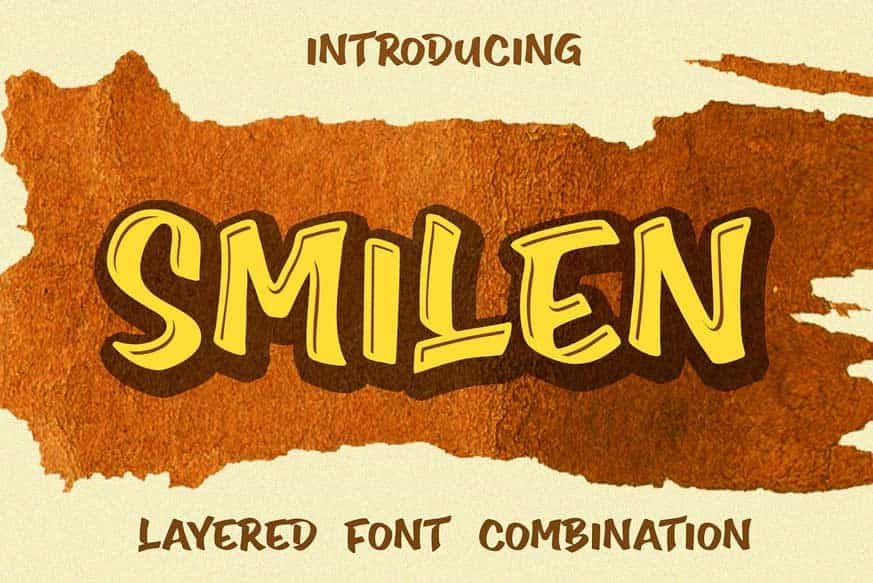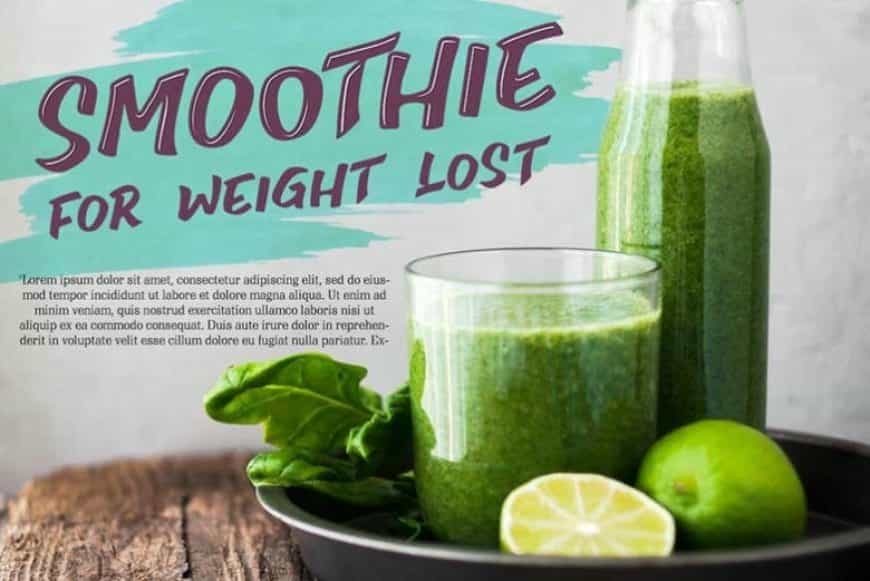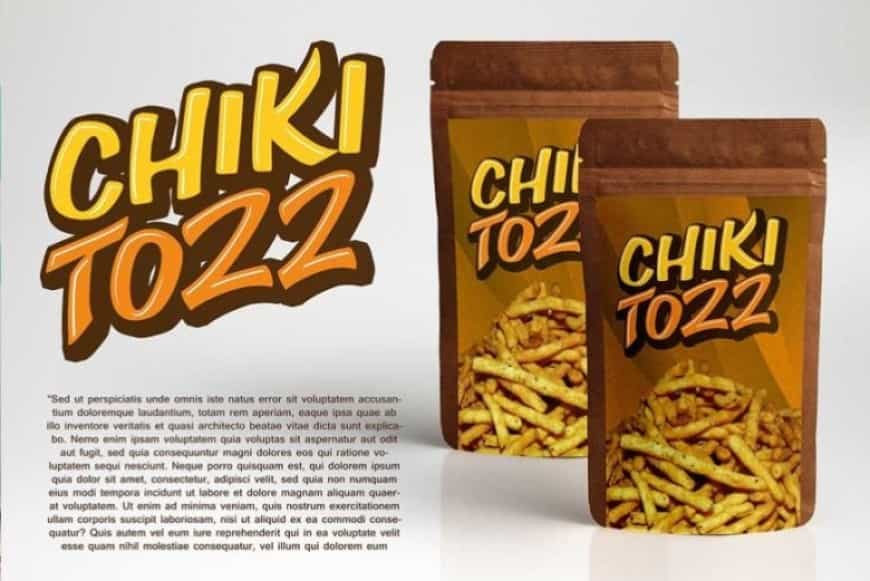
Discover Smilen Font, part of the Brush Display collection—a versatile and unique font perfect for adding a personal touch to your projects. Download it for free and enjoy crafting designs with style, from invitations to social media posts. This font is available exclusively for personal use, giving you the freedom to create without limits. Unlock your creativity with Smilen Font today!
Smilen is a lovely and attractive font that points to love. It makes people hopeful!